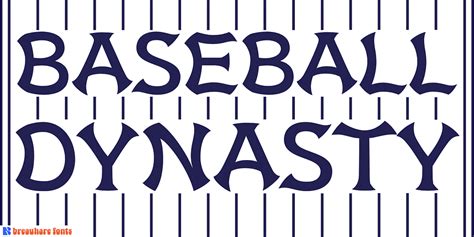
Download Baseball Dynasty Font: A Complete Guide
Hey guys! Ever wondered how to get that classic baseball dynasty font for your projects? Whether you’re designing a team logo, creating awesome sports graphics, or just want that vintage athletic feel, this guide will walk you through everything you need to know about the oscdownload font baseball dynastysc . We’re diving deep into finding, downloading, and using this iconic font, so stick around! This font is popularly used to showcase a retro athletic aesthetic, which is highly preferable for sports teams and design projects. This guide is here to help you find, download and utilise this specific font effectively.
What is the Baseball Dynasty Font?
Let’s start with the basics. The baseball dynasty font , often associated with classic sports aesthetics, is characterized by its bold, blocky letters and a slightly distressed or vintage look. It’s designed to evoke the spirit of old-school baseball jerseys and team memorabilia. The distinct and strong visual impression makes it a popular choice for sports-related designs, and it’s highly readable even from a distance. Many designers and fans seek this font to recreate an authentic, nostalgic feel in their projects. Knowing what makes this font special can help you appreciate its value and choose the right projects to use it in. The font family often includes various weights and styles, allowing for flexibility in different design contexts. For example, you might find versions that are slightly rounded or more angular, providing options to match the specific tone of your project. Understanding these nuances can help you select the perfect variation for your needs. Whether you’re working on a digital design or a physical product, the right version of the baseball dynasty font can make a significant impact.
So, why is the oscdownload font baseball dynastysc so popular? The main reason is its ability to instantly transport anyone back to the golden age of baseball. Think about it: every time you see that font, you’re reminded of legendary teams and iconic moments. Its vintage feel makes any design stand out. Furthermore, it’s super versatile! You can use it for logos, posters, jerseys, and more. The font’s bold and sturdy appearance conveys a sense of strength and tradition, making it perfect for sports teams and athletic brands. Designers also appreciate its readability; even at a distance, the letters are clear and impactful. This clarity is crucial for designs like jerseys and banners, where visibility is key. The font’s aesthetic appeal is also timeless, meaning it doesn’t go out of style. It remains a classic choice for anyone looking to add a touch of nostalgia and authenticity to their work. Additionally, the oscdownload font baseball dynastysc is easily recognizable, which helps in branding and creating a consistent visual identity. Whether you’re a professional designer or a hobbyist, this font is a valuable asset for creating eye-catching and memorable designs.
Where to Find the Baseball Dynasty Font
Using the Baseball Dynasty Font in Your Projects
Now that you’ve got the oscdownload font baseball dynastysc installed, let’s talk about how to use it effectively. This font is perfect for a variety of projects, especially those aiming for a sporty, vintage, or athletic vibe. Here are some ideas:
• Team Logos: Create a classic logo for a baseball team, softball team, or any sports club. Pair it with a cool emblem or mascot to complete the look.
• Jerseys and Apparel: Design custom jerseys, t-shirts, and other apparel items. Use the font for player names, team slogans, or numbers.
• Posters and Banners: Make eye-catching posters and banners for sports events, tournaments, or team promotions. The bold letters will ensure maximum visibility.
• Social Media Graphics: Enhance your social media posts with a touch of vintage flair. Use the font for announcements, game schedules, or motivational quotes.
• Invitations and Flyers: Design unique invitations and flyers for sports-themed parties, fundraisers, or team celebrations.
So there you have it, guys! Everything you need to know about the oscdownload font baseball dynastysc . With its classic, sporty vibe, this font is a fantastic addition to any designer’s toolkit. Just remember to download from reliable sources, follow the installation steps carefully, and use it creatively in your projects. Whether you’re designing a team logo, creating custom apparel, or making eye-catching posters, this font will help you hit a home run every time. Happy designing! By following this guide, you should be well-equipped to find, download, and effectively use the Baseball Dynasty font in your projects. Whether you’re a seasoned designer or just starting, this font offers a timeless appeal that can enhance a wide range of creative endeavors. So go ahead, give it a try, and see how it can elevate your designs!